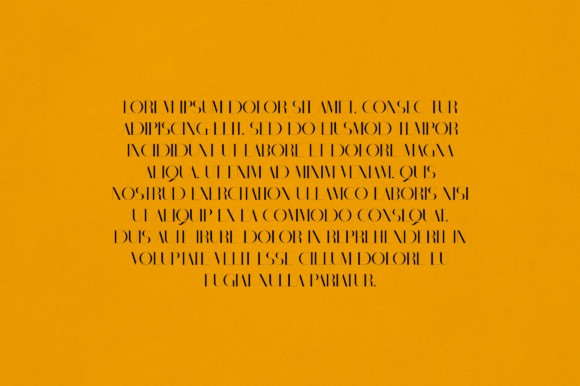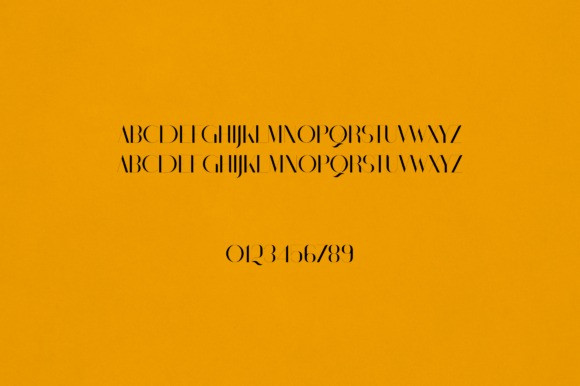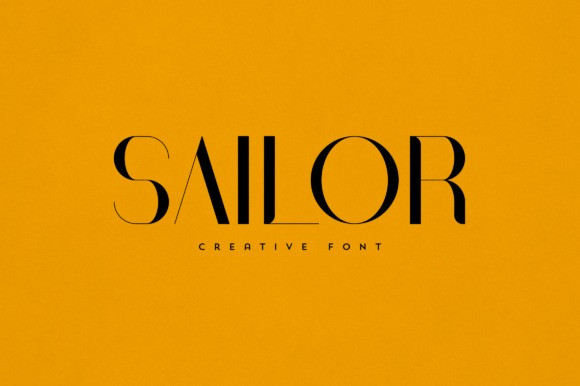
Sailor Font
Sailor Font is an elegant and versatile display font that will make your typography truly unique! It will enchant every logo, branding, headline, or plain text!